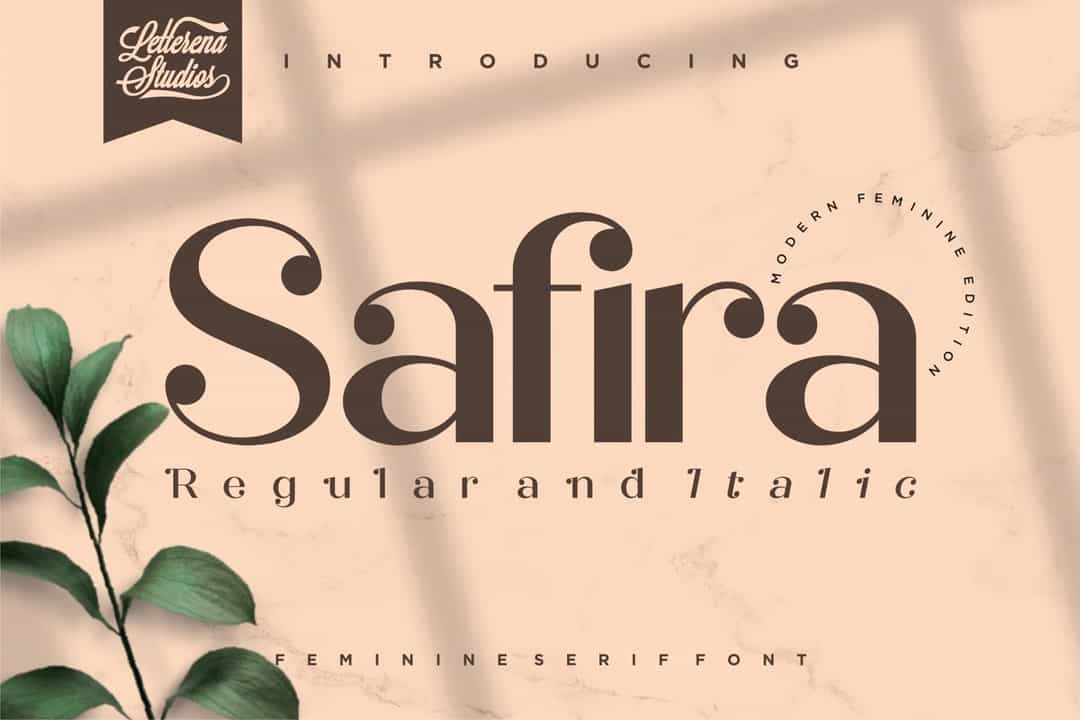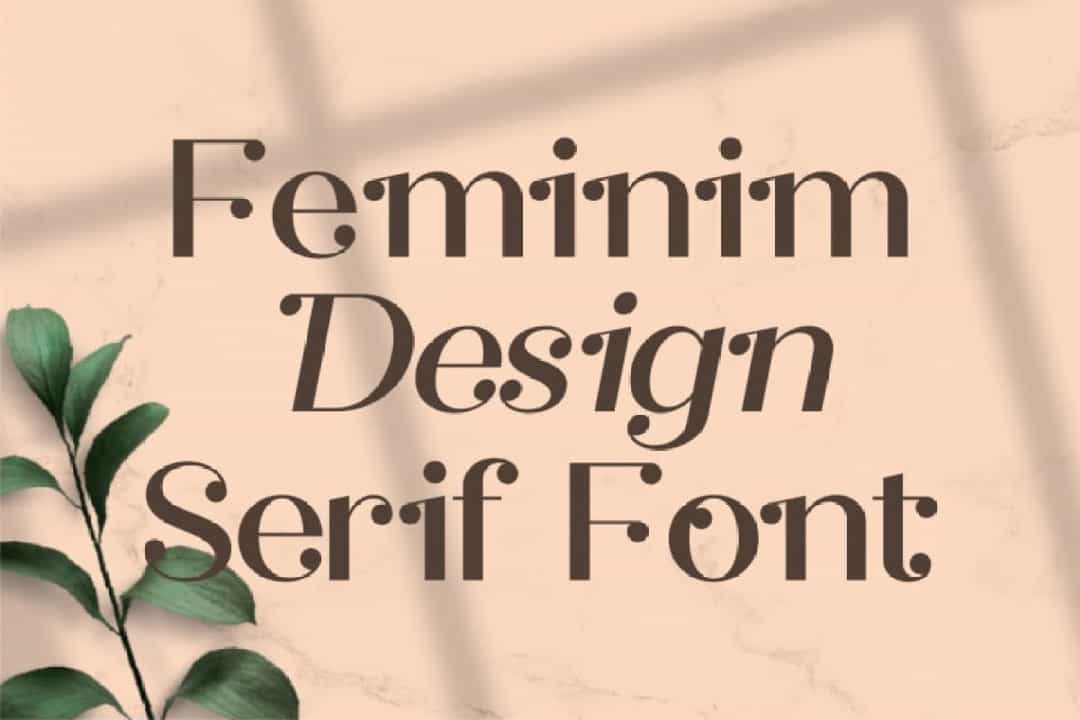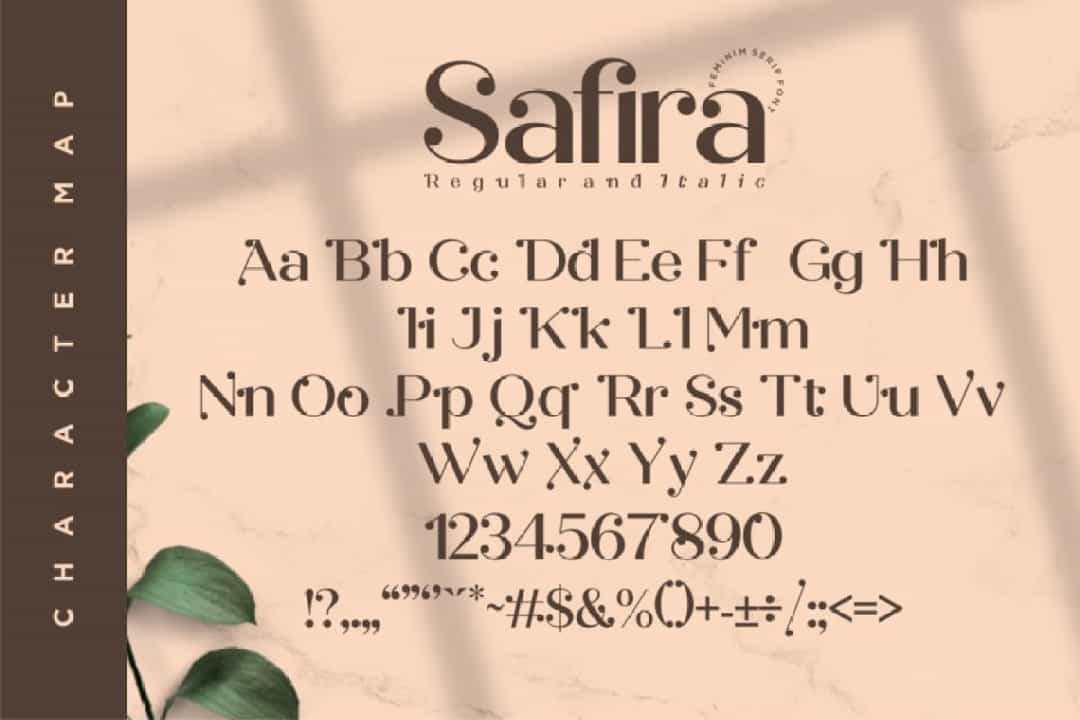
Safira Serif Font is a beautiful lettering font that can be applied in various fields such as logos, branding projects, home accessories, and packaging of goods, packaging of quotes clothing bags shirts books name cards greeting cards invitation cards labels watermark photography for special occasions and many other projects that call for elegant calligraphy styles.